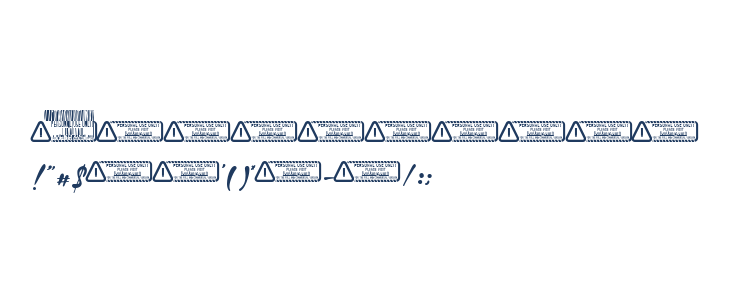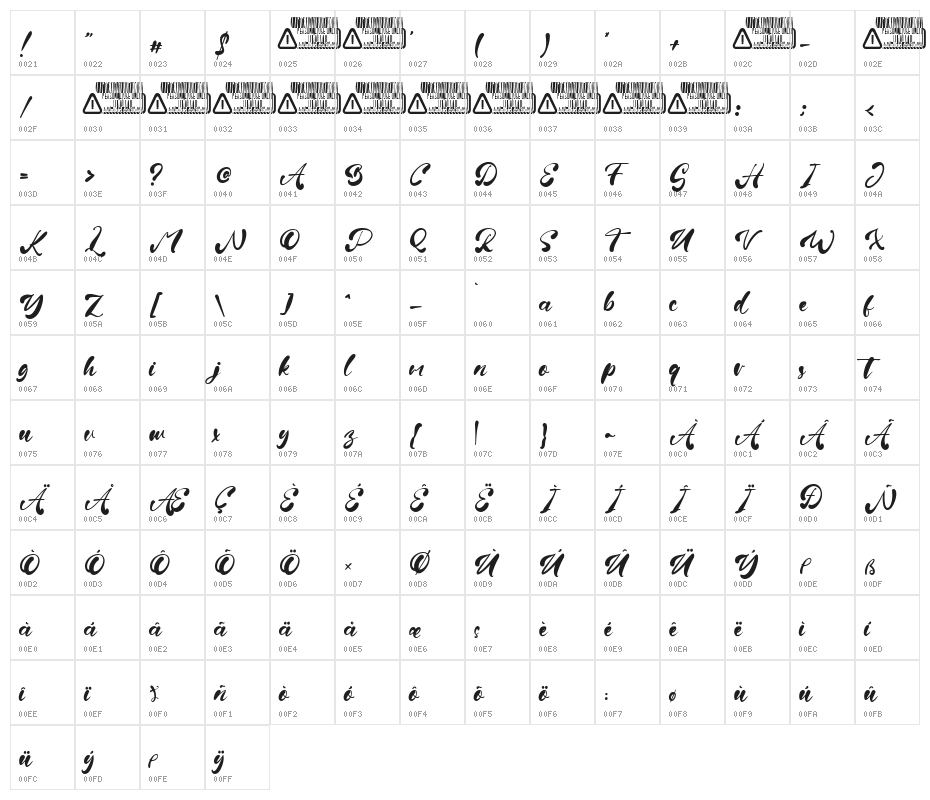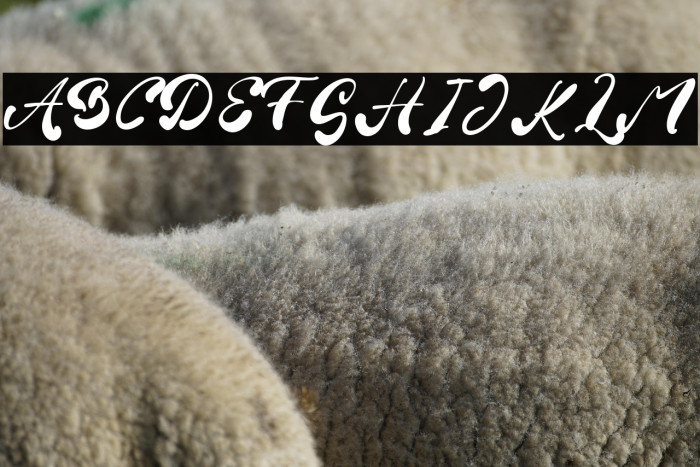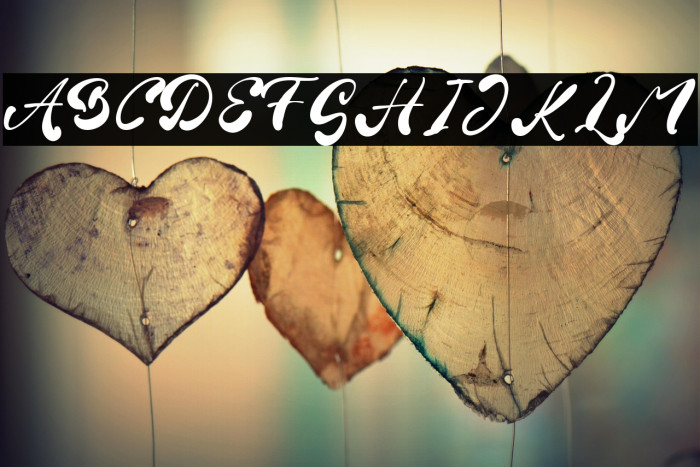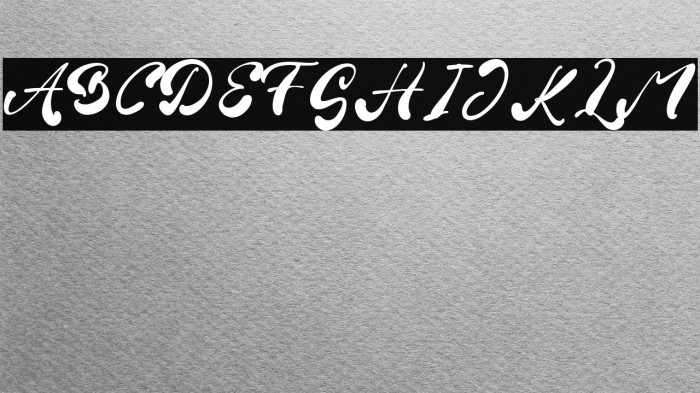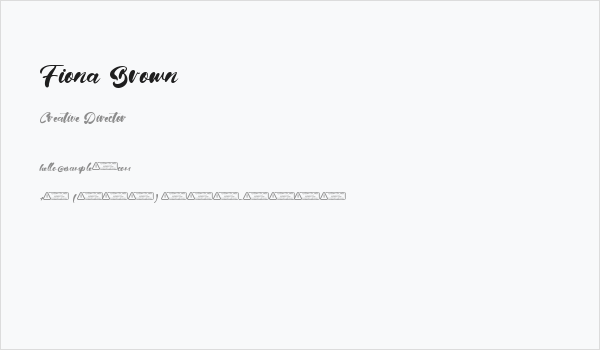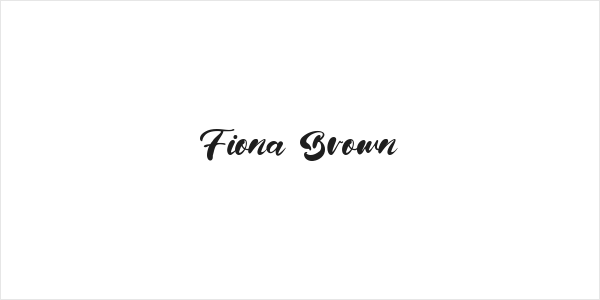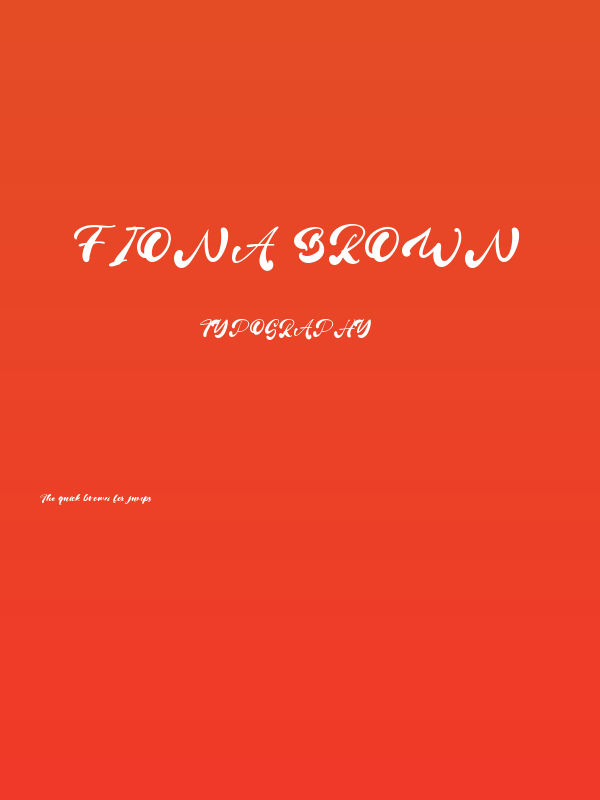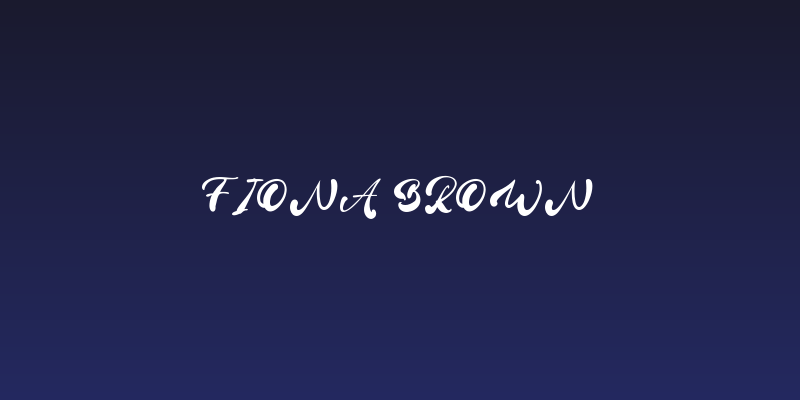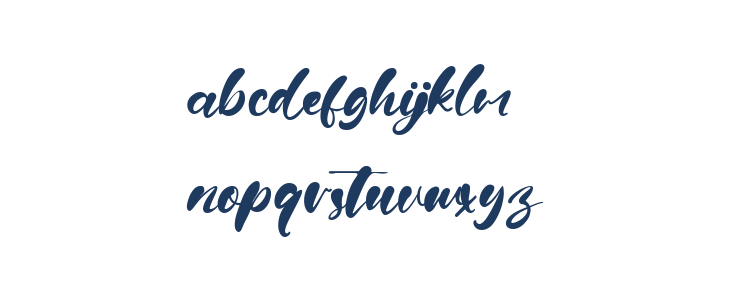
Fiona Brown Font
Fiona Brown Description
This font features a bold and flowing script style, characterized by its elegant and cursive letterforms. The uppercase letters exhibit a graceful, sweeping motion with distinct loops and curves, while the lowercase letters maintain a consistent fluidity, enhancing readability. The font's design is both artistic and sophisticated, making it suitable for creative and formal applications. The characters are well-spaced, allowing for a harmonious visual balance. The special characters complement the overall aesthetic, adding versatility to the font's use.
| Overall Style | Elegant, Artistic |
| Proposed Projects | Ideal for wedding invitations, branding, greeting cards, and elegant signage. |